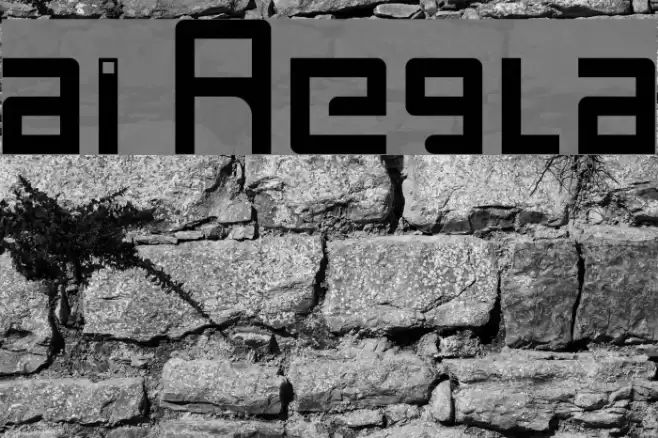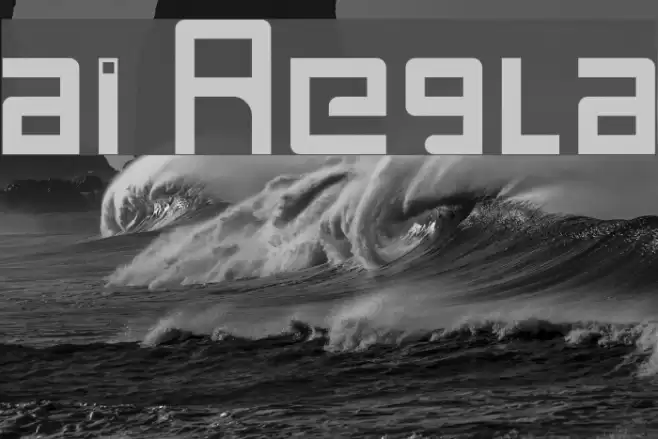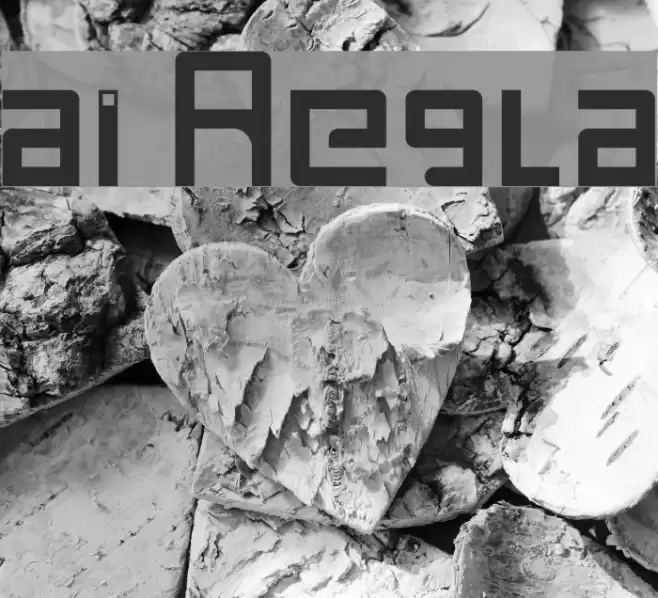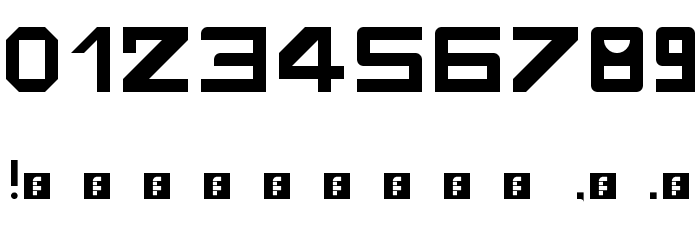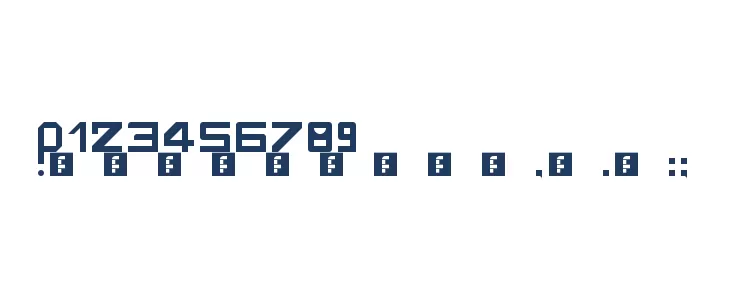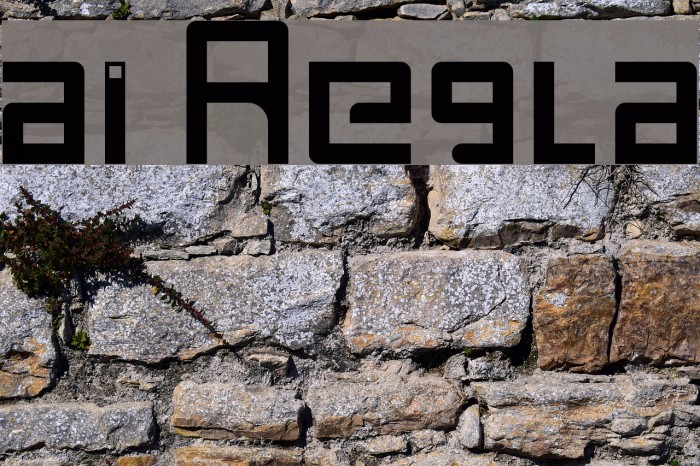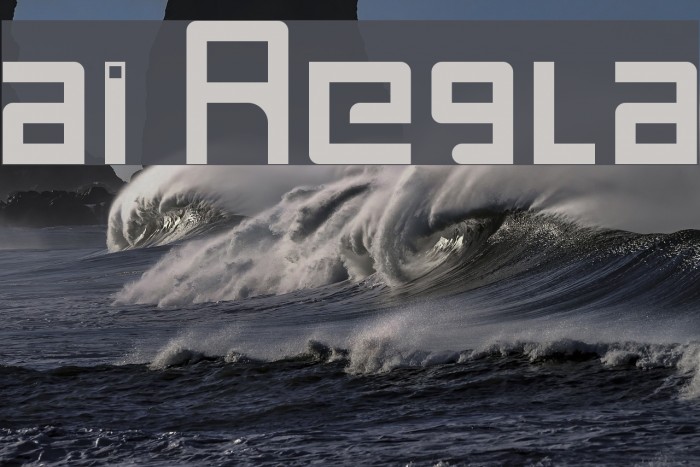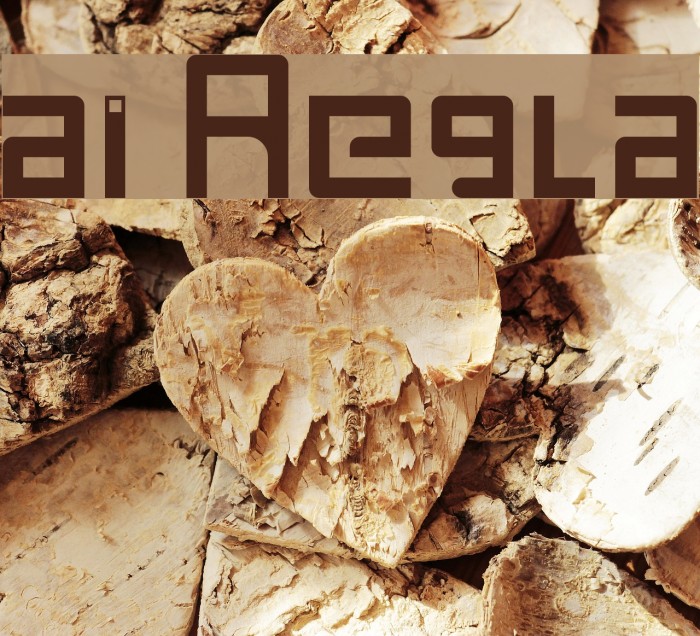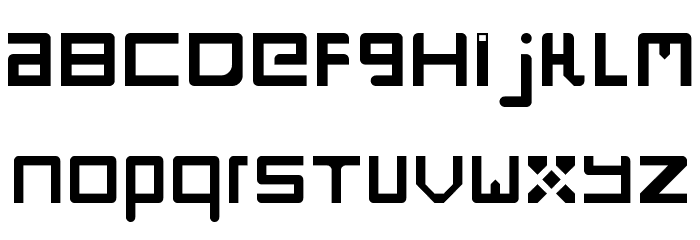
rzrarti Regular Font
rzrarti Regular Description
This font features a geometric and modern design with a strong emphasis on straight lines and sharp angles. The characters are constructed with a consistent stroke width, giving it a uniform appearance. The uppercase and lowercase letters maintain a similar structure, enhancing readability while providing a unique style. The numbers are bold and clear, making them stand out effectively. Special characters are designed to match the overall aesthetic, ensuring a cohesive look across all glyphs. This font's futuristic and technical feel makes it suitable for projects that require a modern and clean appearance.
A geometric, modern font with consistent stroke width and sharp angles from Uncategorized fonts.
- Proposed Projects: Ideal for technology branding, modern posters, digital interfaces, and futuristic designs.
- Use Case: Headlines, Logos, Digital interfaces